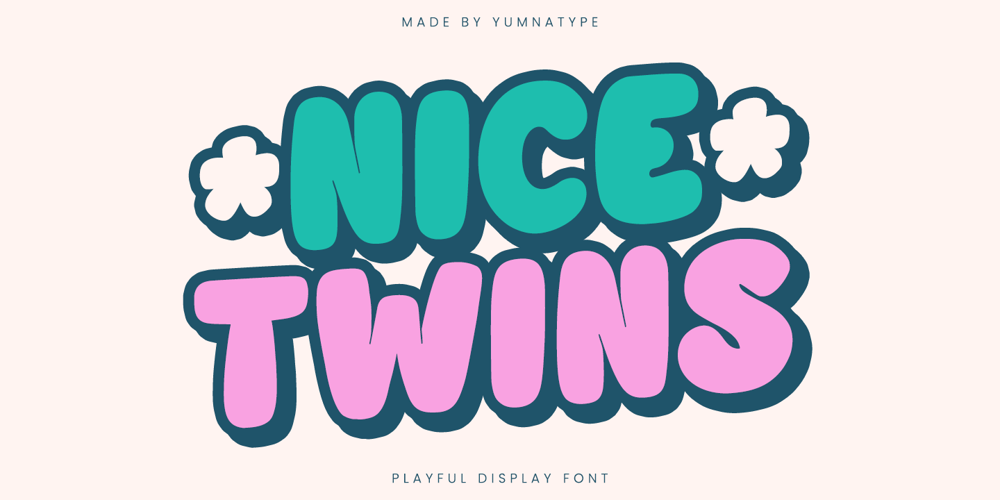
Nice Twins
Nice Twins font
Nice Twins Font Family was designed by Donis Miftahudin and published by Yumna Type. Nice Twins contains 1 styles and family package options. Nice Twins is a fun and playful display font that brings joy and character to your designs. Crafted in all capital letters, this font exudes a bold presence with its very thick letter weight, ensuring that your message stands out prominently. The very low contrast between strokes gives it a smooth look, while the rounded shapes add a touch of friendliness and approachability. In addition, enjoy the features here.Features: Ligatures Multilingual Supports PUA Encoded Numerals and Punctuations Nice Twins fits in headlines, logos, posters, flyers, branding materials, print media, editorial layouts, and many more designs. Find out more ways to use this font by taking a look at the font preview.Thanks for purchasing our fonts. Hopefully, you have a great time using our font. Feel free to contact us anytime for further information or when you have trouble with the font. Thanks a lot and happy designing.